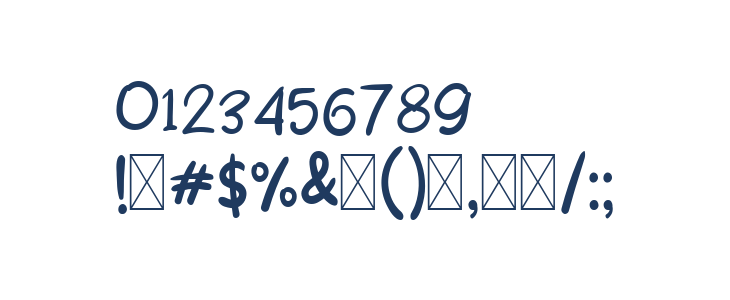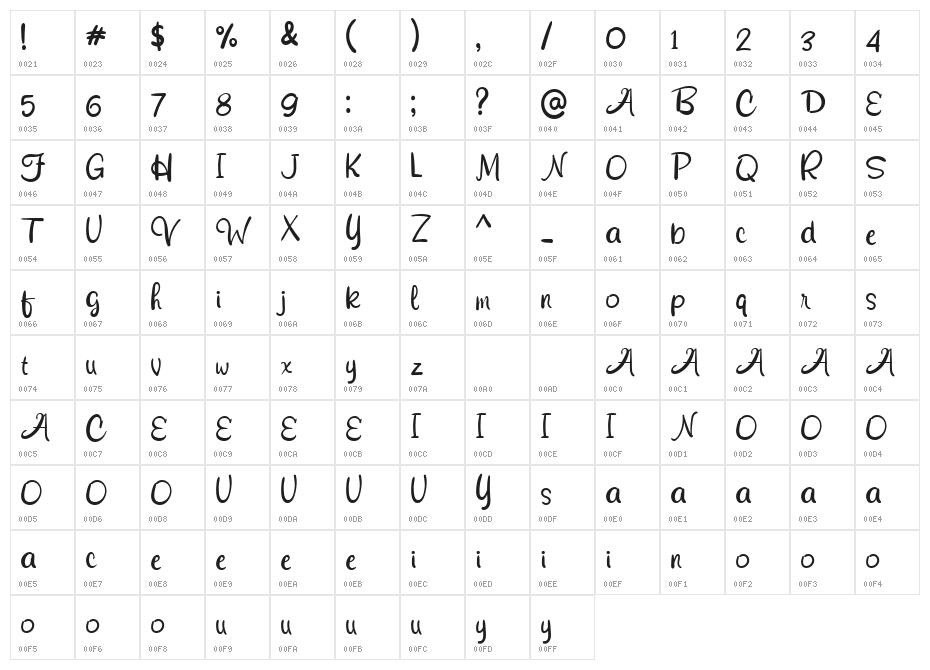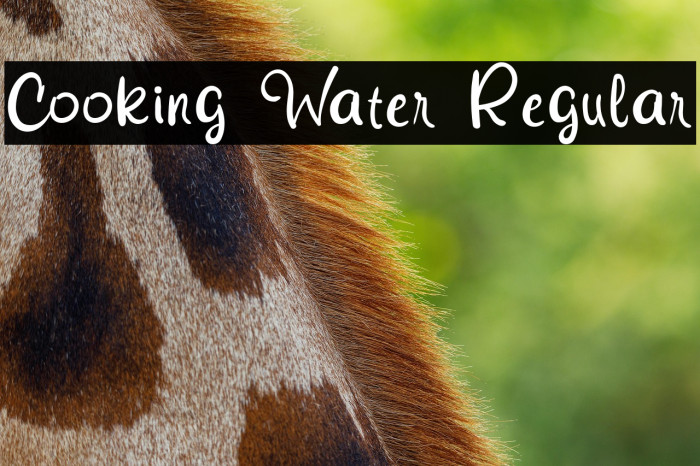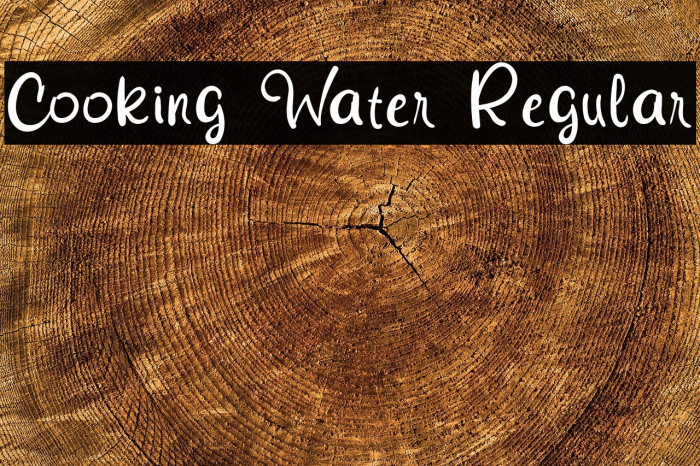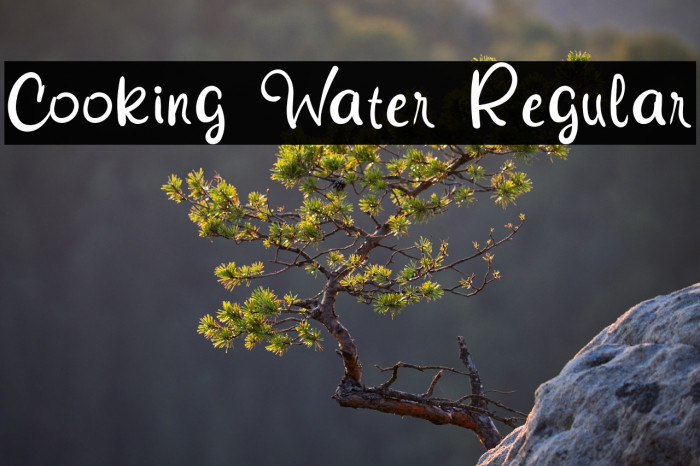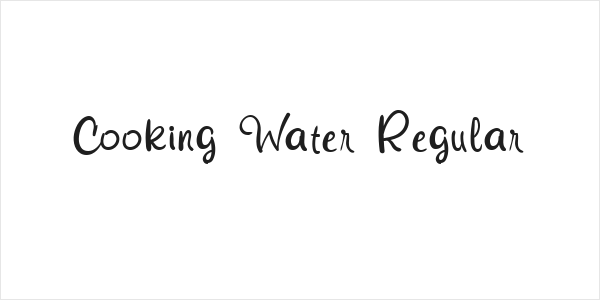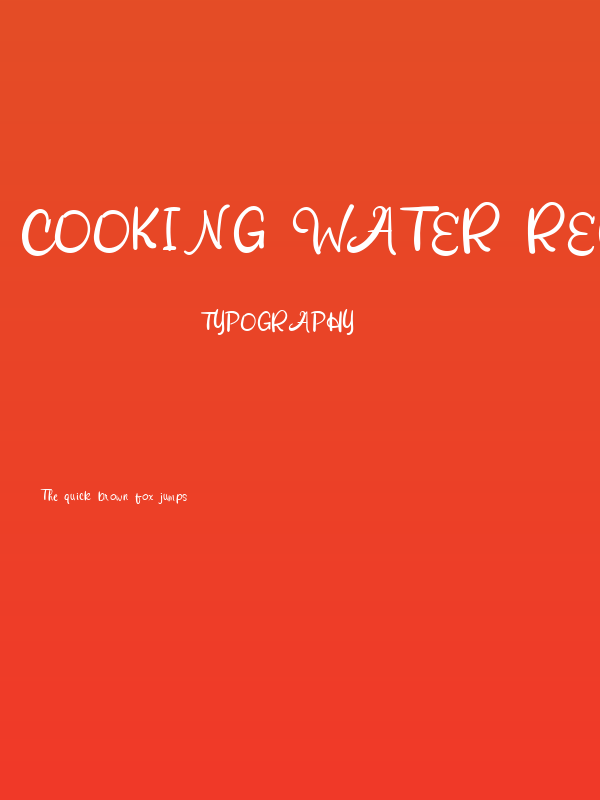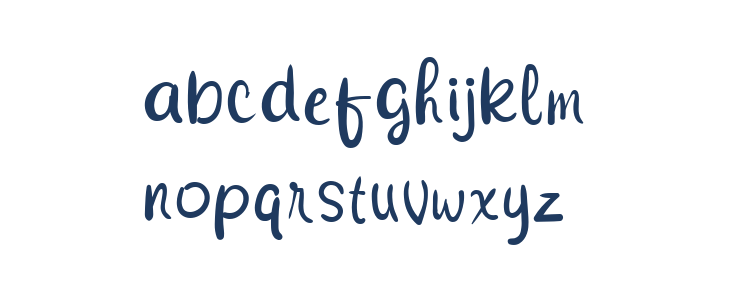
Cooking Water Regular Font
Cooking Water Regular Description
This font features a playful and casual script style, characterized by its fluid and dynamic strokes. The letters have a hand-drawn quality, with varying thickness that adds a sense of movement and energy. The uppercase letters are bold and slightly whimsical, while the lowercase letters maintain a consistent flow, enhancing readability. The numerals are rounded and complement the overall style, making them easy to distinguish. Special characters are integrated seamlessly, maintaining the font's cohesive appearance. This font is ideal for projects that require a personal touch, such as invitations, greeting cards, or branding materials.
| Overall Style | Casual, Playful |
| Use Case | Headlines, Logos, Invitations |
| Proposed Projects | Ideal for invitations, greeting cards, branding materials, and any project needing a personal touch. |